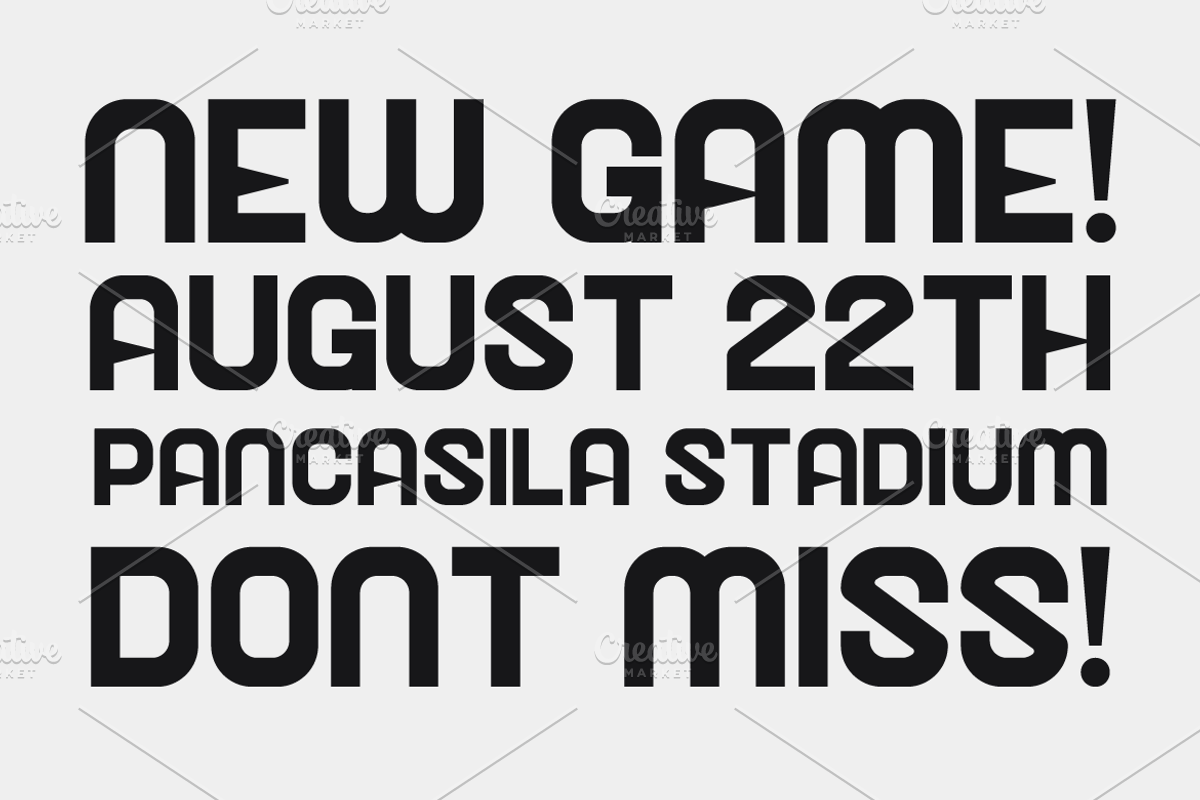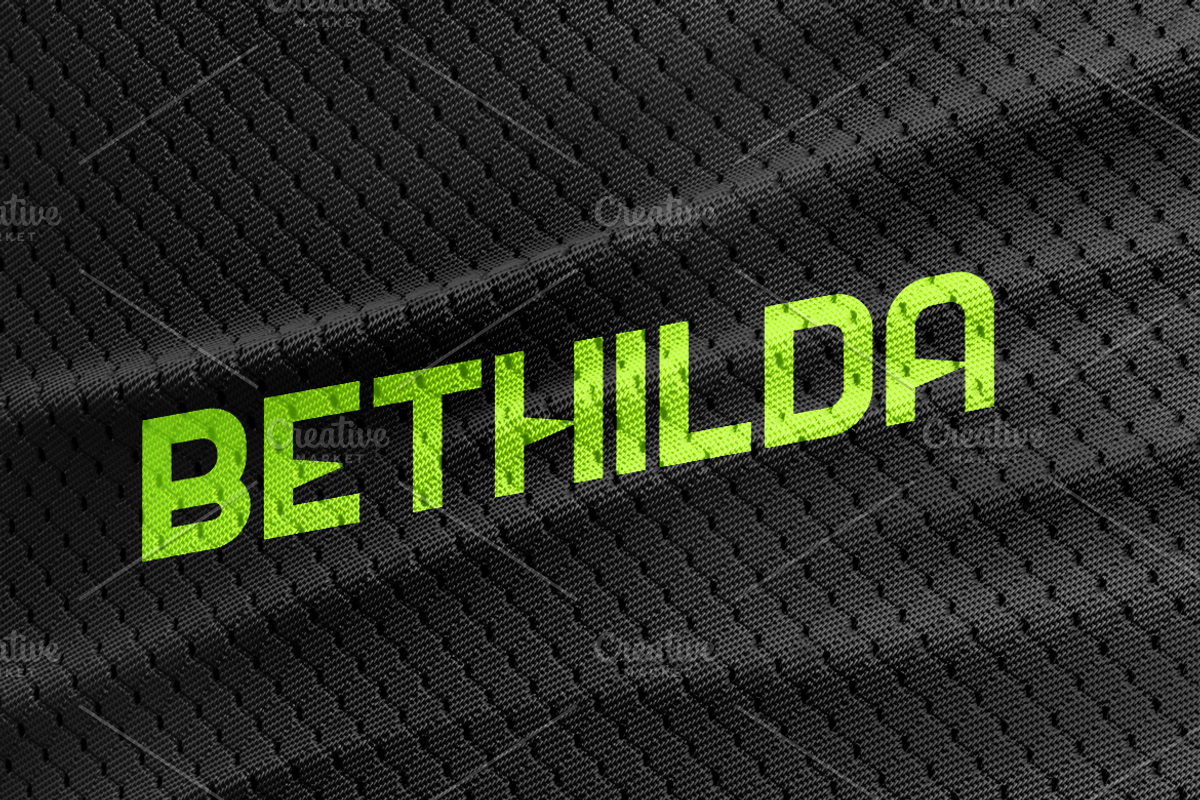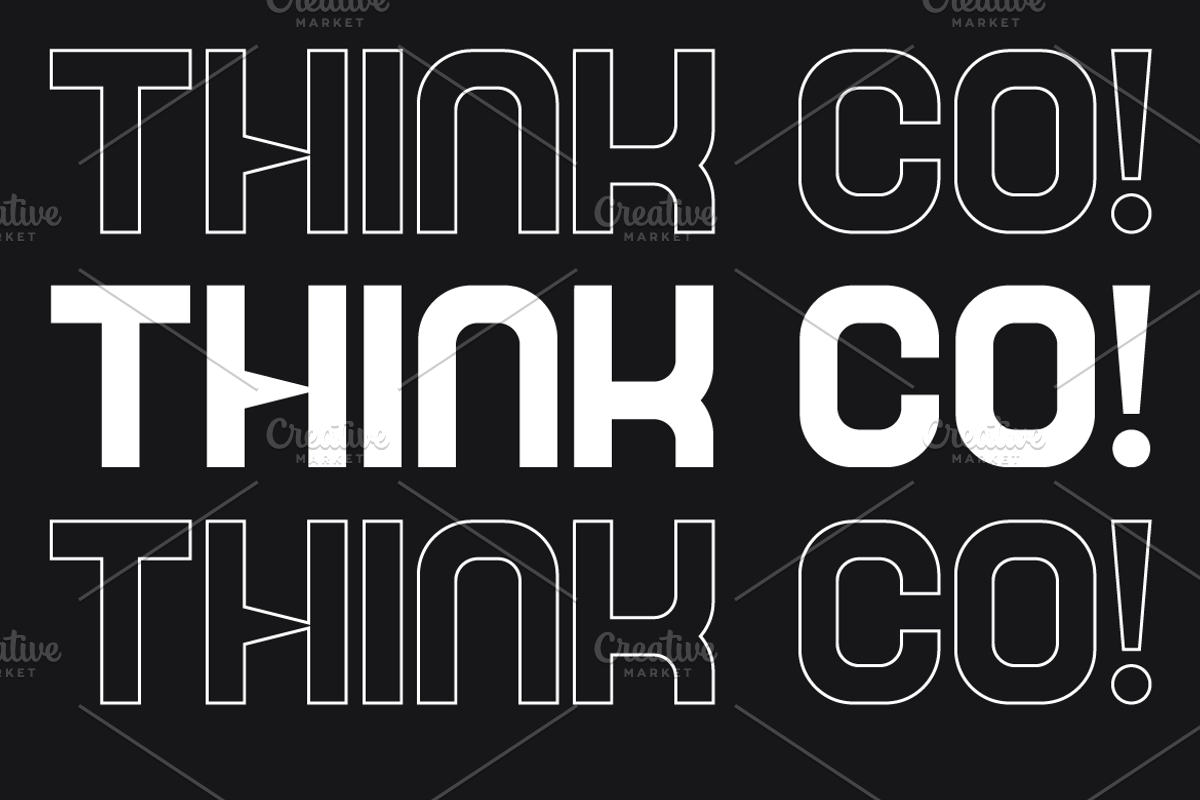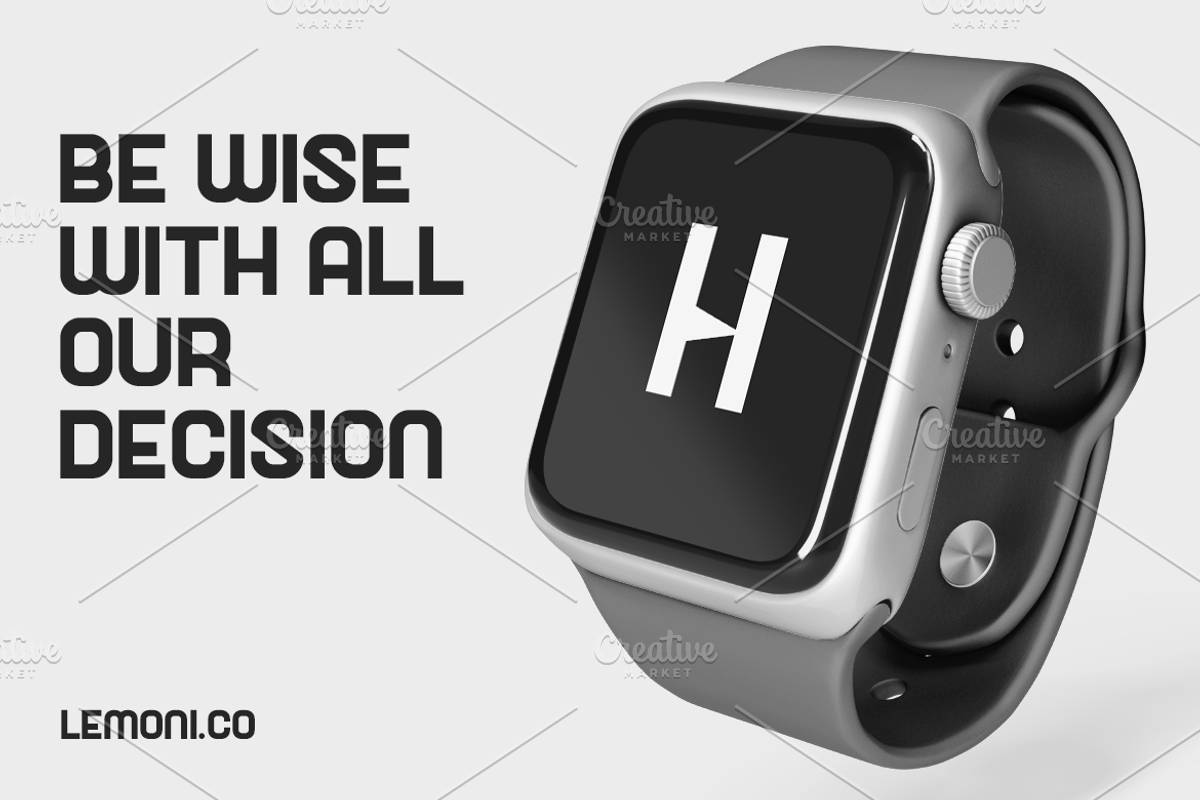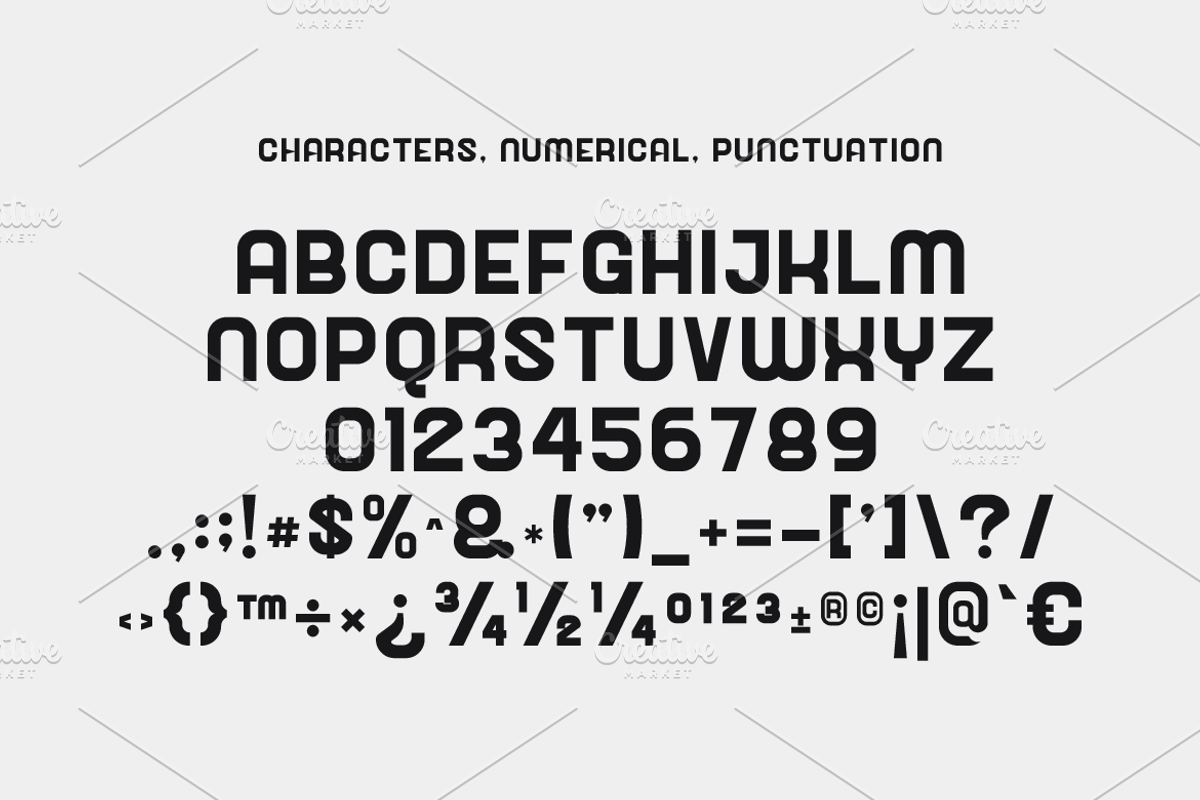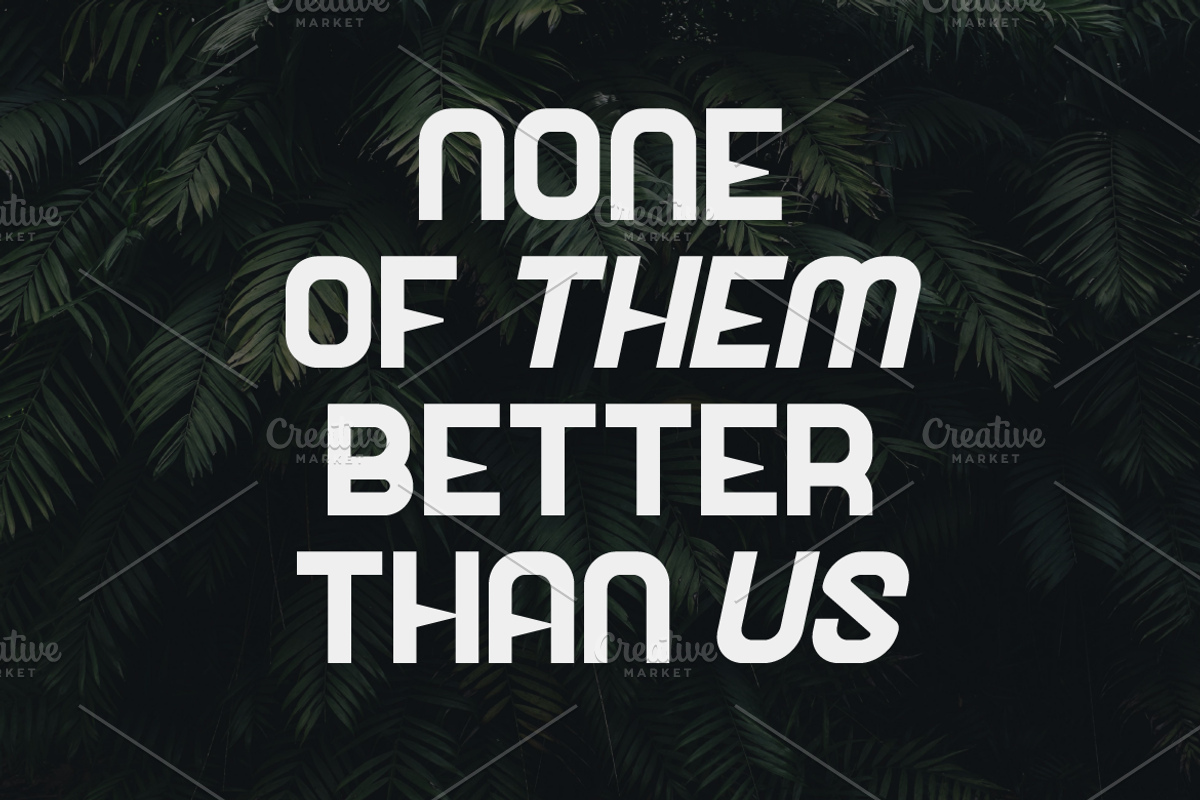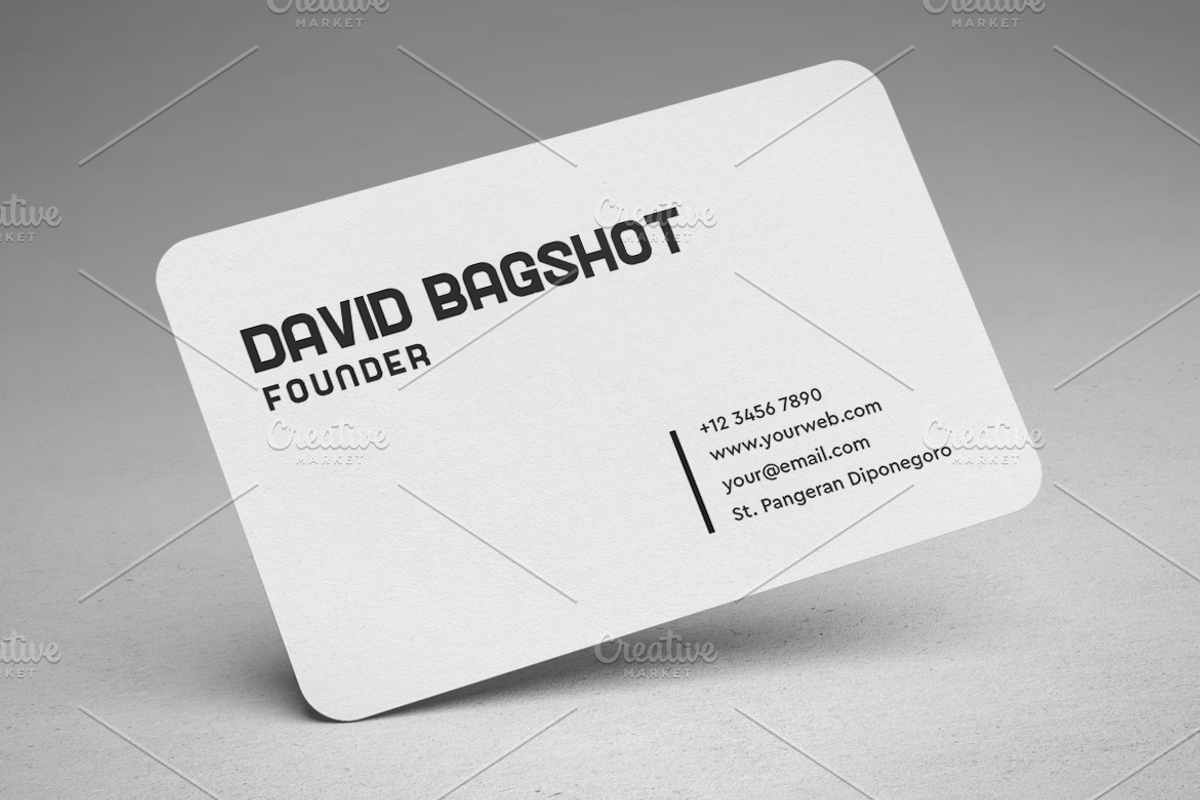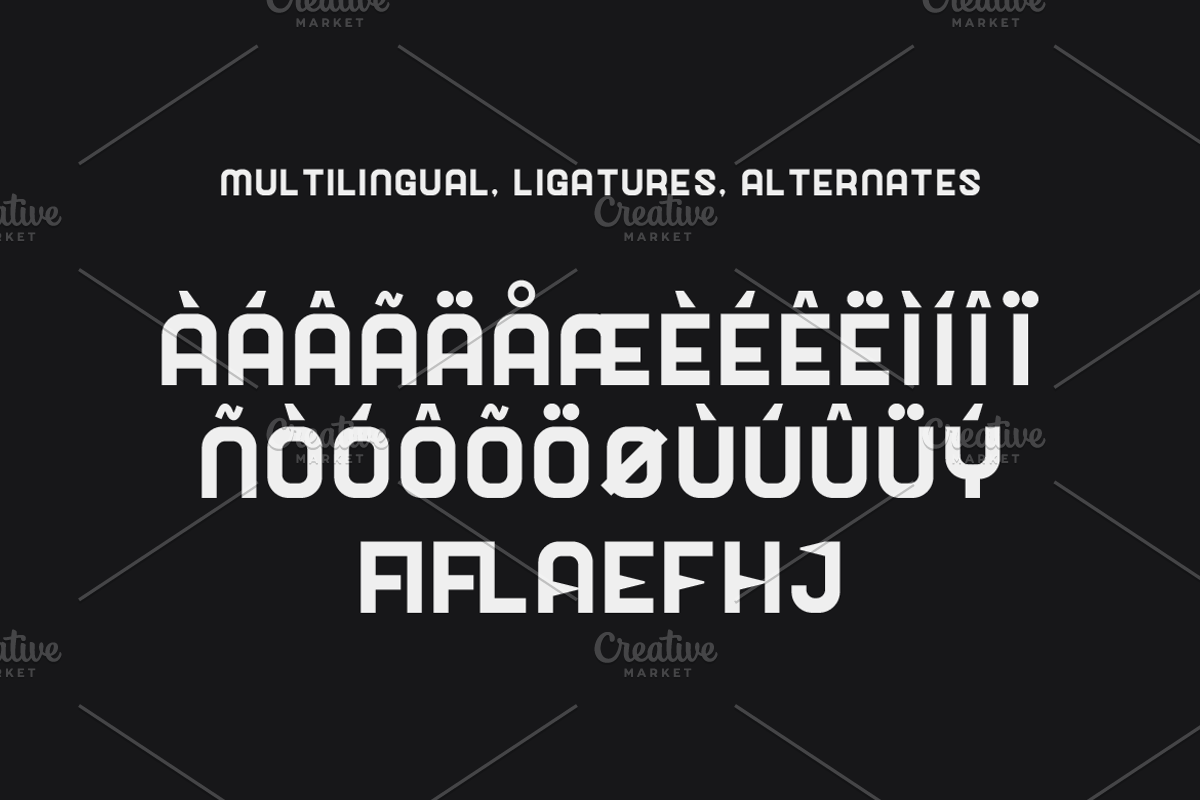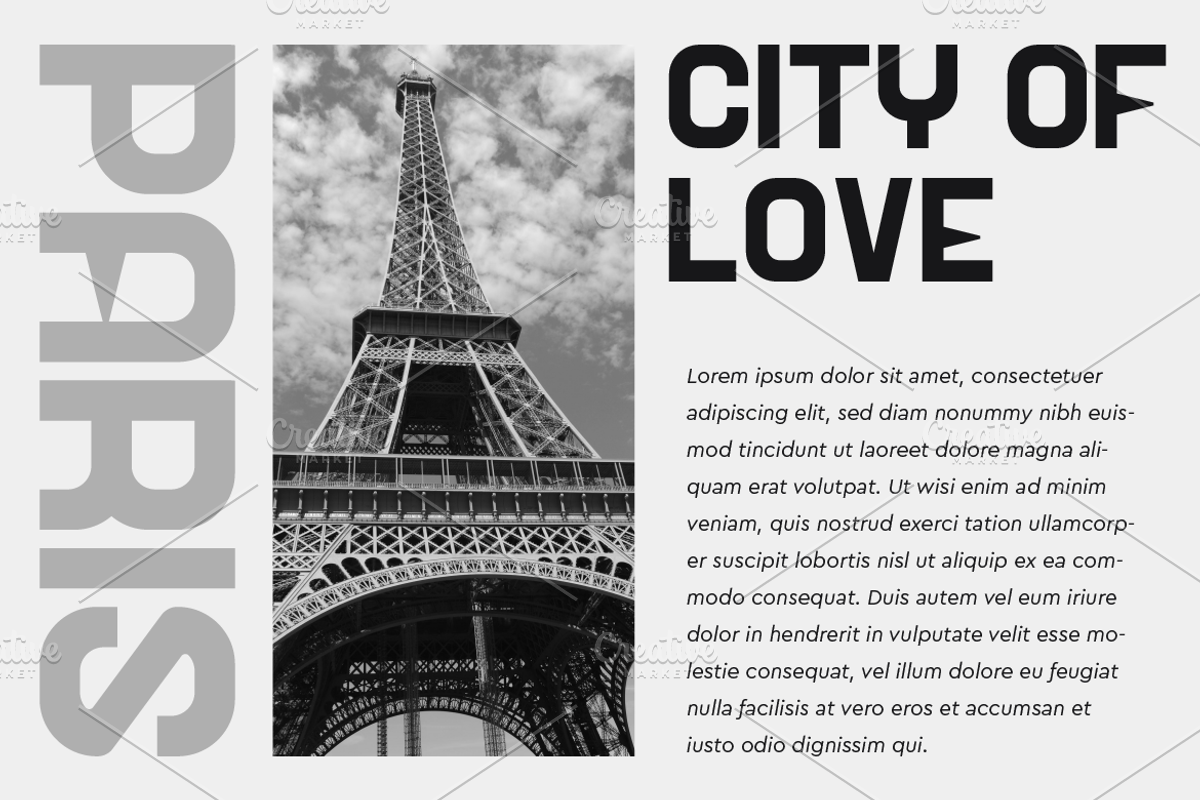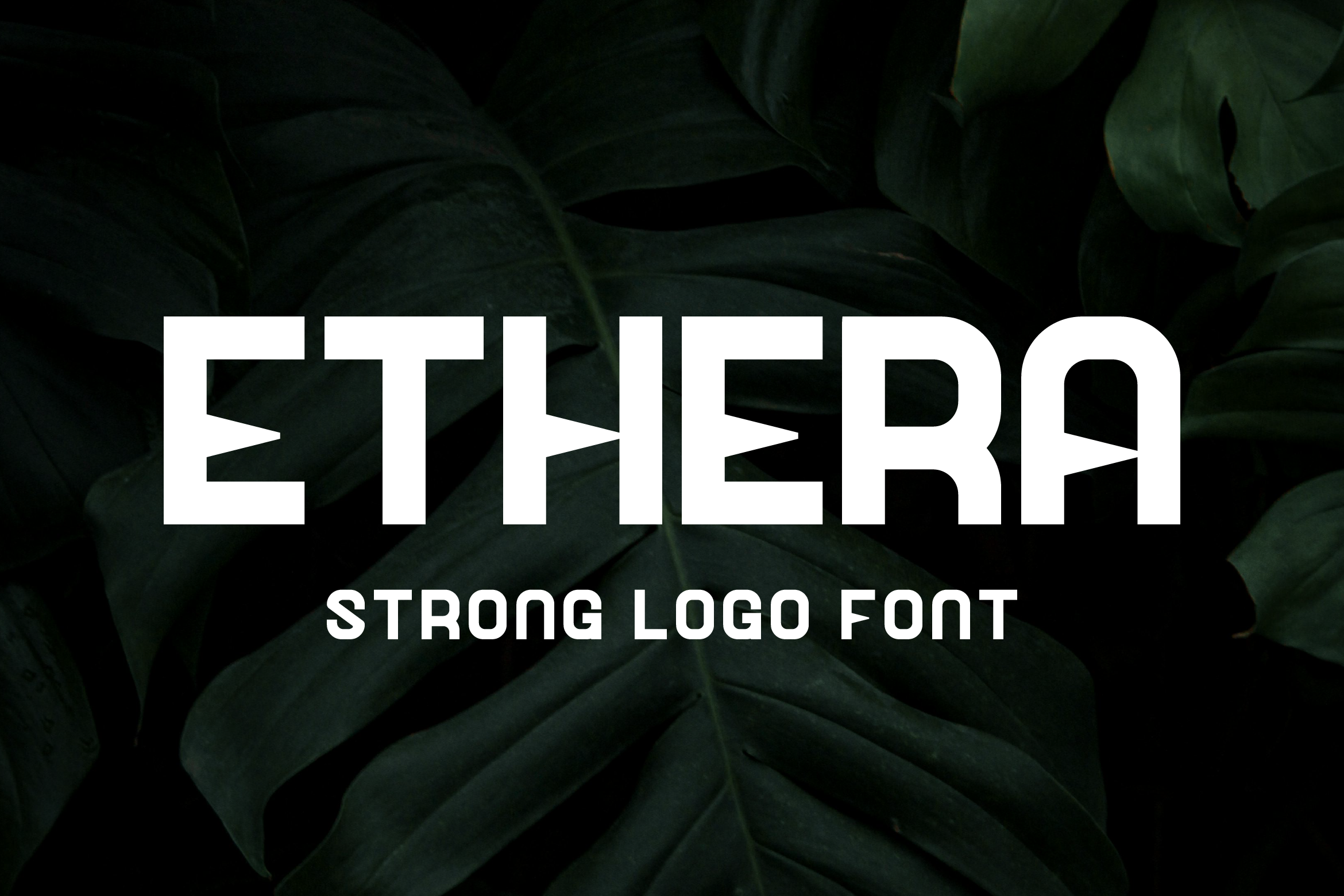
Ethera Bold Logo Font
Ethera is a bold sans-serif logo font crafted by Iwan Alwan, known for its unique and striking design. It offers versatility with variations in uppercase and lowercase characters, along with multilingual support, ligatures, and alternates. Ideal for use in magazines, business cards, posters, and more, Ethera adds a distinctive touch to any project, blending modern style with creative flexibility.